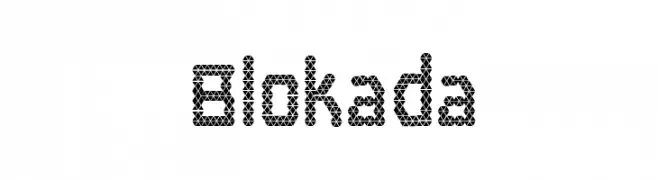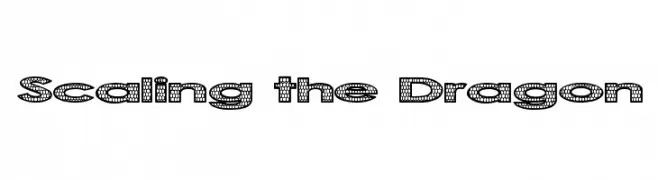
A bold, athletic font with a unique mesh pattern, ideal for sports themes.
An ornate, decorative font with intricate designs and bold, artistic flair.
A decorative font with a mosaic pattern, offering a bold and artistic style.
A decorative font with intricate, textured patterns in uppercase letters.
A bold, decorative font with a retro halftone pattern, perfect for eye-catching designs.
A bold, italicized font with star-filled characters and outlined design.
A bold, decorative font with a star-filled pattern, perfect for eye-catching designs.
A bold, italicized font filled with a decorative star pattern.
A playful, doodle-patterned font with a hand-drawn aesthetic.
A decorative font with a mosaic-like texture and elegant serif forms.
A bold, decorative font with a playful polka dot pattern.
A bold, dotted decorative font with a playful, retro vibe.
A playful, hand-drawn outline font with bold, rounded characters.
A playful, hand-drawn font with crosshatch patterns in select characters.
A bold, playful font with a unique dotted pattern.
A bold, decorative font with intricate, maze-like patterns in each character.
A bold, decorative font with a dotted pattern and thick outlines.
A bold, decorative font with a geometric circle pattern and strong outlines.
A bold, 3D font with a dotted texture and retro style.
A bold, decorative font with a unique wave pattern, ideal for impactful designs.
A modern, decorative font with a brick-patterned design.
A bold, decorative font with intricate, retro-inspired patterns.
A decorative font with intricate patterns inside bold uppercase letters.
A bold, patterned font with diverse textures and a playful, modern style.
A bold, decorative font with a 3D effect and dotted pattern, ideal for retro or playful designs.
A bold, decorative font with a 3D effect and intricate line patterns.
A decorative font with intricate patterns and bold, artistic style.
A bold, decorative font with a geometric hexagonal pattern and strong outlines.
A bold, decorative font with a unique striped pattern, ideal for eye-catching displays.
A bold, decorative font with a honeycomb pattern and 3D effect.
A playful, decorative font with domino and card suit motifs.
A playful, decorative font with bold, rounded characters filled with intricate patterns.
A bold, decorative font with a unique patterned texture.